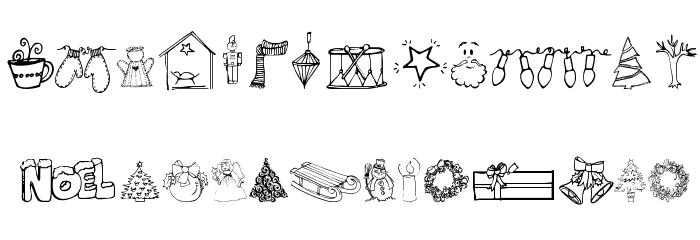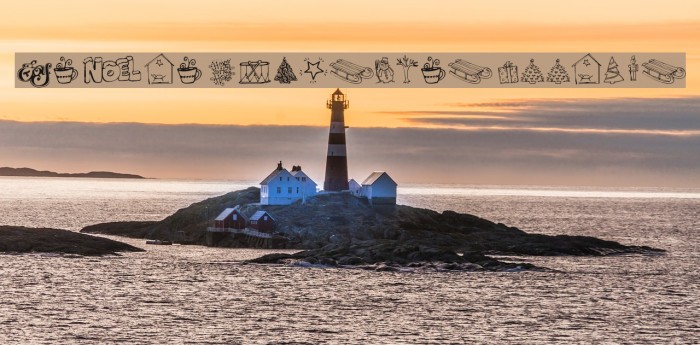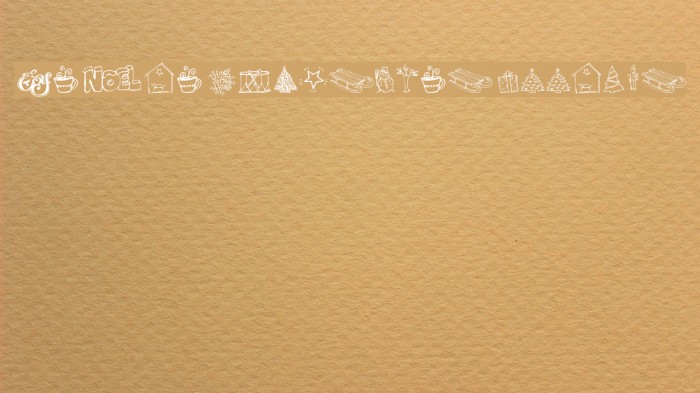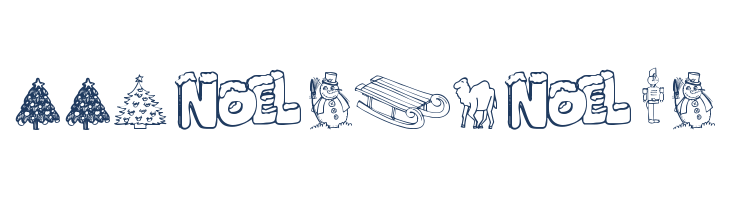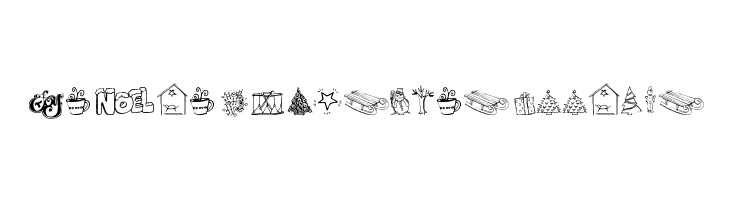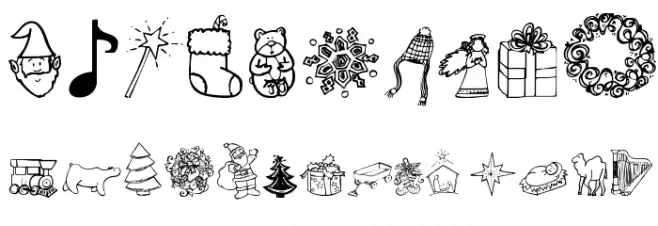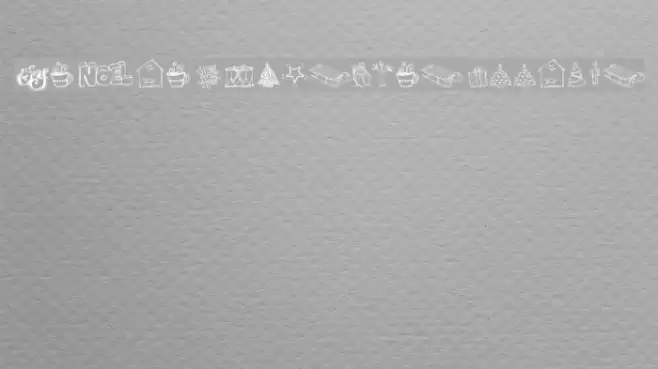
Janda Christmas Doodles Font
This collection features a whimsical and festive array of Christmas-themed doodles, perfect for adding a playful touch to holiday designs. The elements include a variety of holiday icons such as Christmas trees, ornaments, snowflakes, and gift boxes, each illustrated with a hand-drawn, sketch-like quality. The style is light-hearted and decorative, capturing the joyful spirit of the season. The doodles are detailed yet maintain a simplicity that makes them versatile for various applications. These elements can be used to enhance holiday cards, gift tags, party invitations, and more, bringing a unique and cheerful aesthetic to any project.
A festive collection of hand-drawn Christmas-themed doodles for holiday designs.
- Proposed Projects: Ideal for holiday cards, gift tags, party invitations, festive banners, and seasonal marketing materials.
- Use Case: Logos, Headlines, Decorative elements